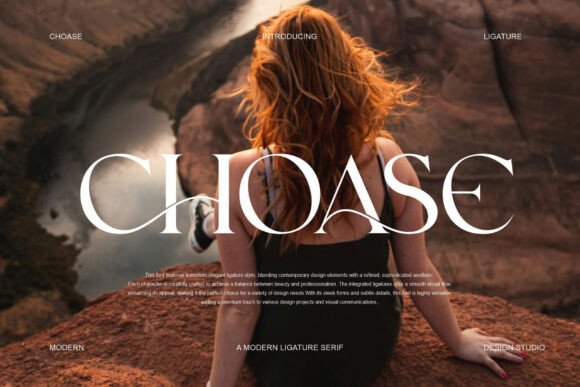
Introducing Choase: The Elegant Ligature Serif Font for Sophisticated Designs
In the world of typography, fonts play a crucial role in conveying the tone and personality of a brand or design. For those seeking a typeface that exudes elegance, sophistication, and a touch of modernity, Choase is an exceptional choice. This beautiful ligature serif font is designed to evoke the freshness of blooming flowers and the timeless charm of classic serif styles, making it perfect for upscale designs in florals, fashion, and high-end branding.
What Makes Choase Stand Out?
Choase is more than just a font; it’s an experience. With its bold yet refined ligatures, this elegant typeface stands out in any design, adding a touch of femininity and sophistication. The font’s design is characterized by its soft and graceful presence, making every letter feel intentional and carefully crafted. Whether you’re working on a floral design, a fashion brand, or a high-end product, Choase elevates your project with its classic yet modern appeal.
Key Features of Choase:
- Elegant Ligatures: Choase boasts beautiful ligatures that add a touch of elegance and refinement to any text.
- Serif Modernity: The font combines traditional serif elements with a modern twist, making it perfect for designs that require a classic yet contemporary feel.
- Feminine Touch: Choase’s design exudes a sense of femininity, making it ideal for brands or designs that want to convey elegance and sophistication.
- Versatility: This font is versatile and can be used in various design projects, from florals and fashion to high-end branding and luxury products.
Ideal Design Applications for Choase
Choase’s unique blend of classic and modern elements makes it suitable for a wide range of design applications. Here are some of the ideal uses for this elegant font:
Examples of Design Projects that Benefit from Choase:
- Floral Designs: The font’s fresh and elegant feel makes it perfect for floral designs, adding a touch of sophistication to any project.
- Fashion Branding: Choase’s refined and feminine design makes it an excellent choice for fashion brands looking to convey elegance and luxury.
- High-End Branding: For brands that require a sophisticated and high-end feel, Choase is an excellent choice, adding a touch of class and refinement to any design.
- Wedding and Event Designs: The font’s elegant and refined design makes it perfect for wedding and event designs, adding a touch of sophistication and romance to any project.
Tips for Using Choase Effectively in Typography
To get the most out of Choase, here are some typography tips to keep in mind:
Best Practices for Using Choase:
- Pair with Neutral Backgrounds: Choase looks best on neutral backgrounds, allowing the font’s elegance and sophistication to take center stage.
- Experiment with Ligatures: Take advantage of Choase’s beautiful ligatures to add a touch of elegance and refinement to your text.
- Adjust Font Sizes: Experiment with different font sizes to create visual hierarchy and add emphasis to specific parts of your text.
- Use in Combination with Other Fonts: Choase can be paired with other fonts to create a unique and visually appealing typography style.
In conclusion, Choase is an exceptional font that offers a unique blend of elegance, sophistication, and modernity. With its refined ligatures, classic serif elements, and feminine touch, this font is perfect for upscale designs in florals, fashion, and high-end branding. By following best practices for typography and using Choase effectively, designers can create stunning and sophisticated designs that elevate any project.